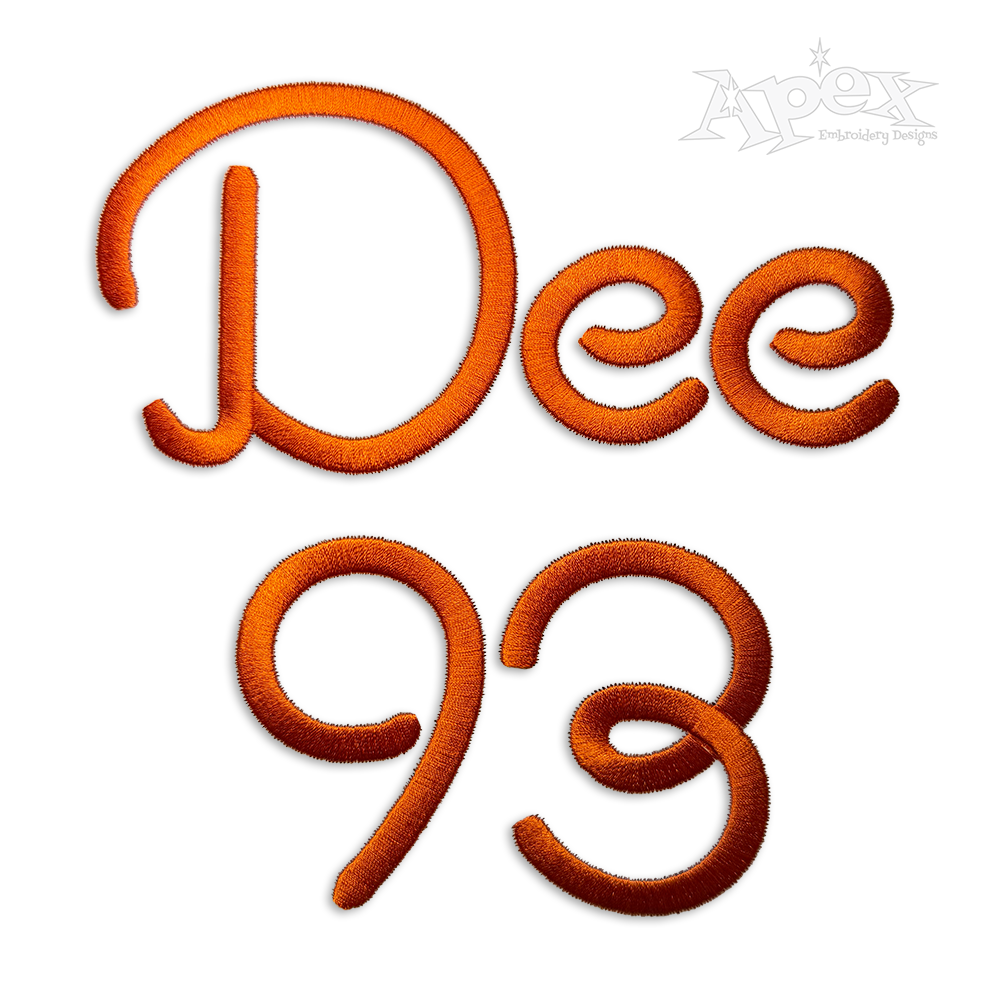
Sookie Embroidery Font
Evoking the effortless warmth of a Southern garden gathering and the sunlit charm of vintage coastal style, the Sookie Embroidery Font radiates joyful sophistication. Digitized with an artisan's dedication to rhythm, balance, and clean motion, each letterform captures a spirited balance of whimsical swashes and tailored structure. As your needle maps the buoyant loops and gentle curves, Sookie reveals a rich, dimensional satin luster that turns everyday textiles into bespoke heirloom embroidery treasures.
Sookie Craft & Letterform Details
The beauty of the Sookie alphabet lies in its harmonious blend of organic hand-drawn movement and strict structural precision. Rather than relying on automated conversions, our digitizers sculpted each stroke with dynamic satin stitch angles that trace the natural cadence of calligraphy. This intentional angle mapping creates a lustrous, light-catching surface that makes your embroidery thread gleam from every perspective.
Beneath the surface, foundational underlay stitches are mapped to build vertical loft while preventing distortion and fabric puckering. Tapered column terminations eliminate bulky thread build-up where curves intersect, ensuring your machine transitions smoothly from sweeping flourishes to delicate serifs. Sookie is a true celebration of custom monogramming craft—engineered to glide through stitching effortlessly while leaving an indelible impression of tailored grace.